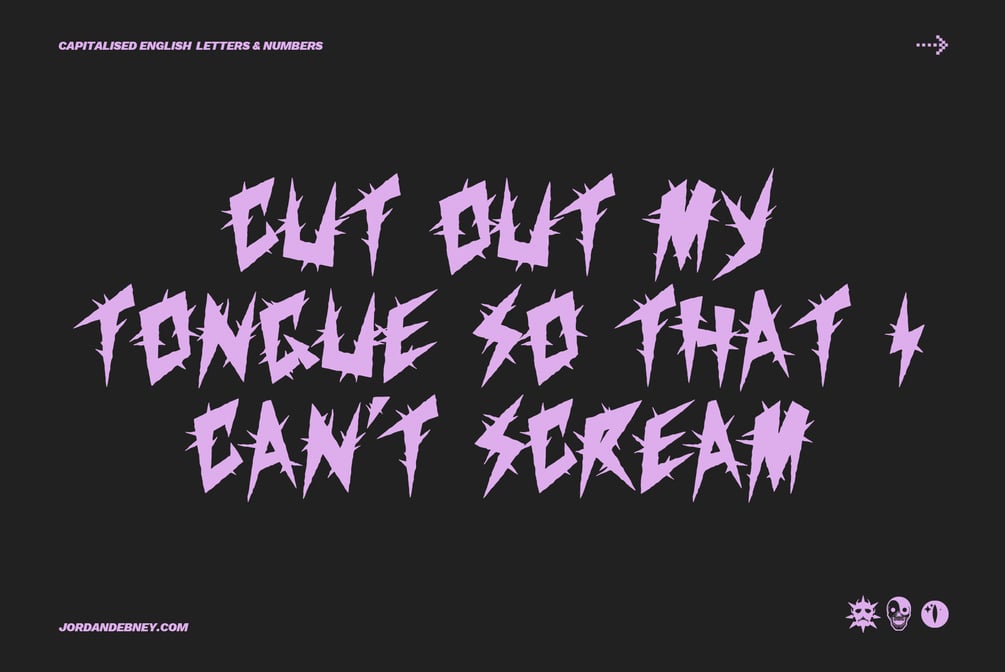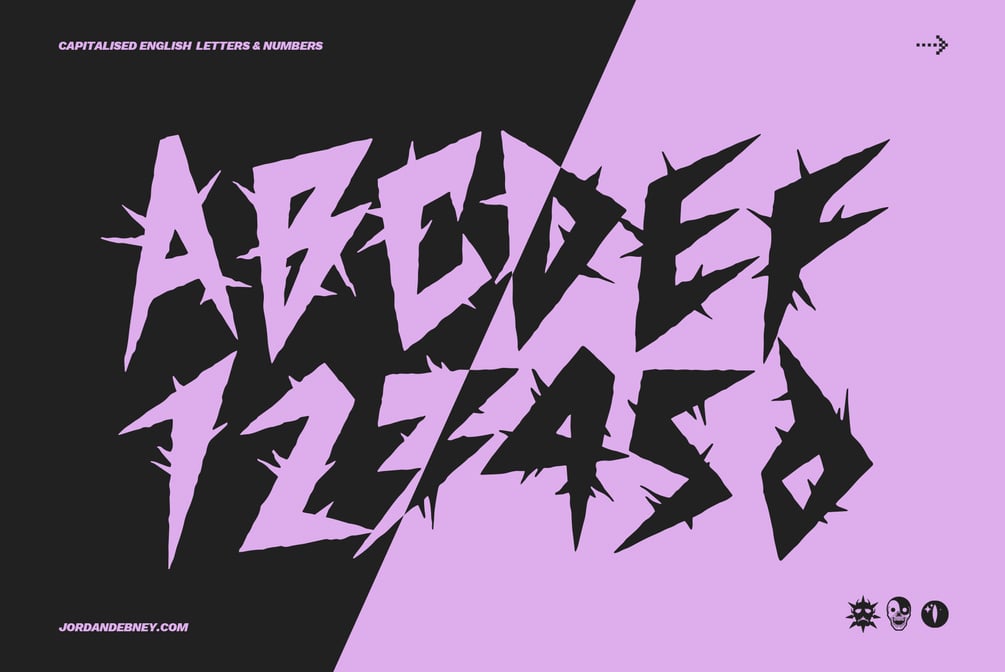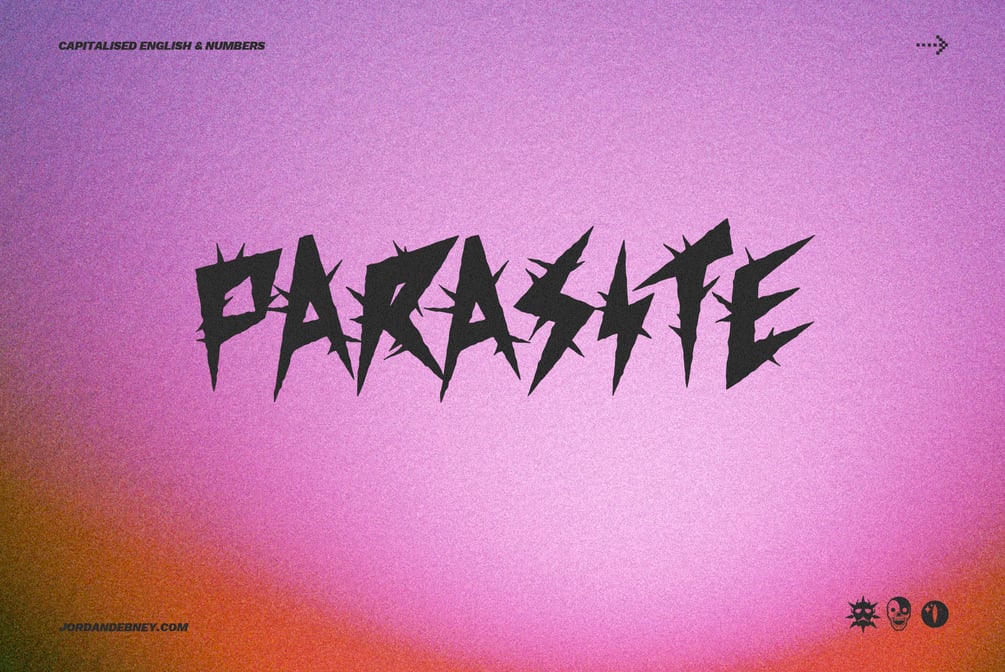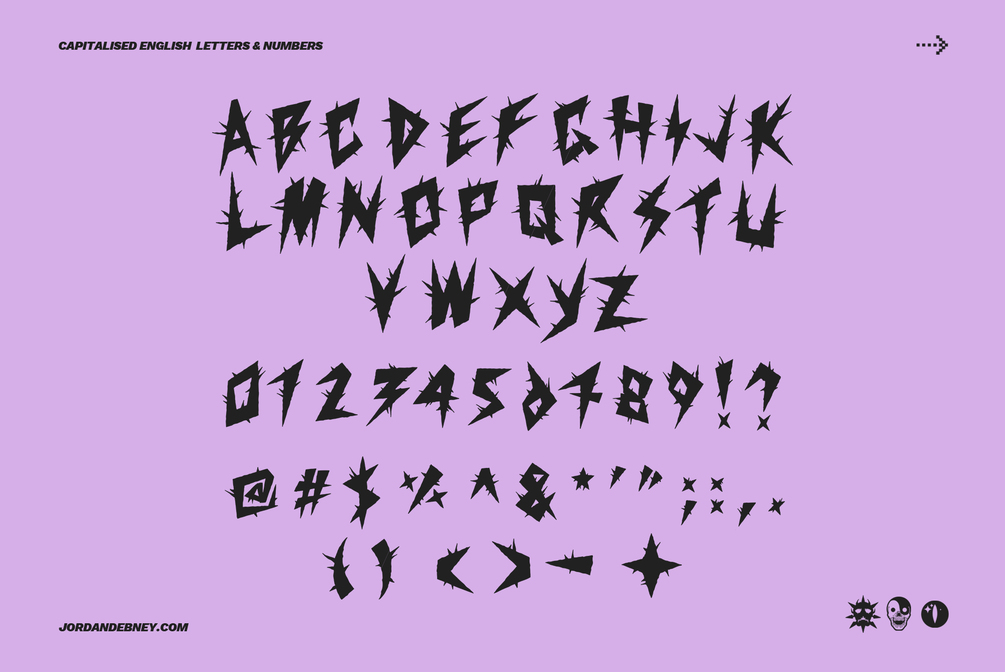
PARASITE TYPEFACE [FREE]
A HEADLINE TYPEFACE DESIGNED FOR STREET-WEAR, GIG POSTERS OR GENERALLY ANYTHING YOU'LL EVER NEED A KILLER TYPEFACE FOR.
◆ HAND-DRAWN AUTHENTIC GLYPHS.
◆ CAPITALISED ENGLISH LETTERS AND NUMBERS.
◆ INCLUDES A REGULAR (SPIKE-LESS) VERSION OF 'PARASITE'